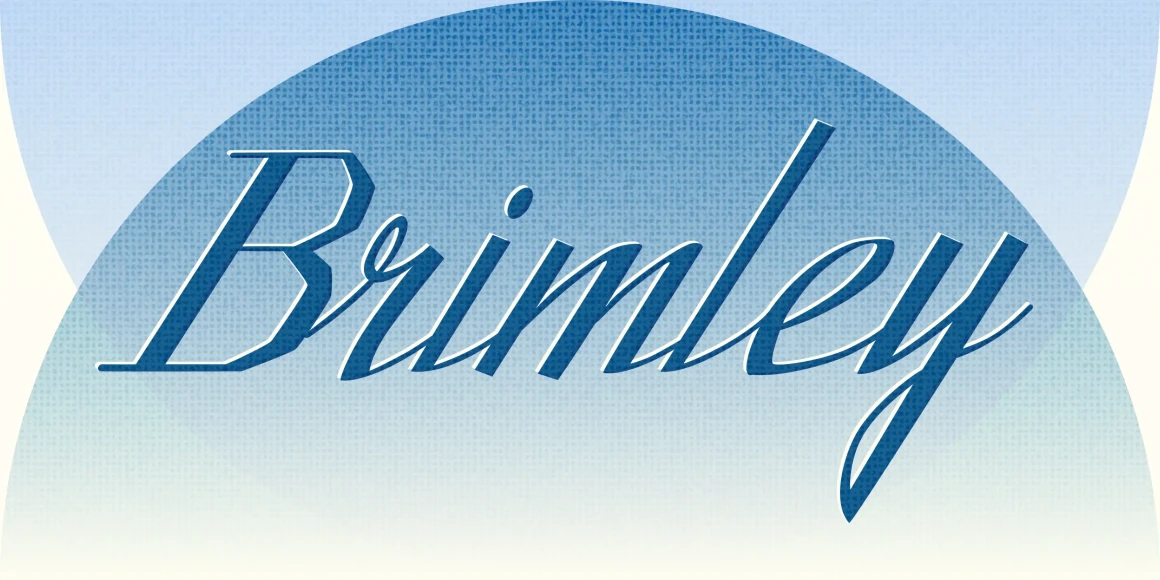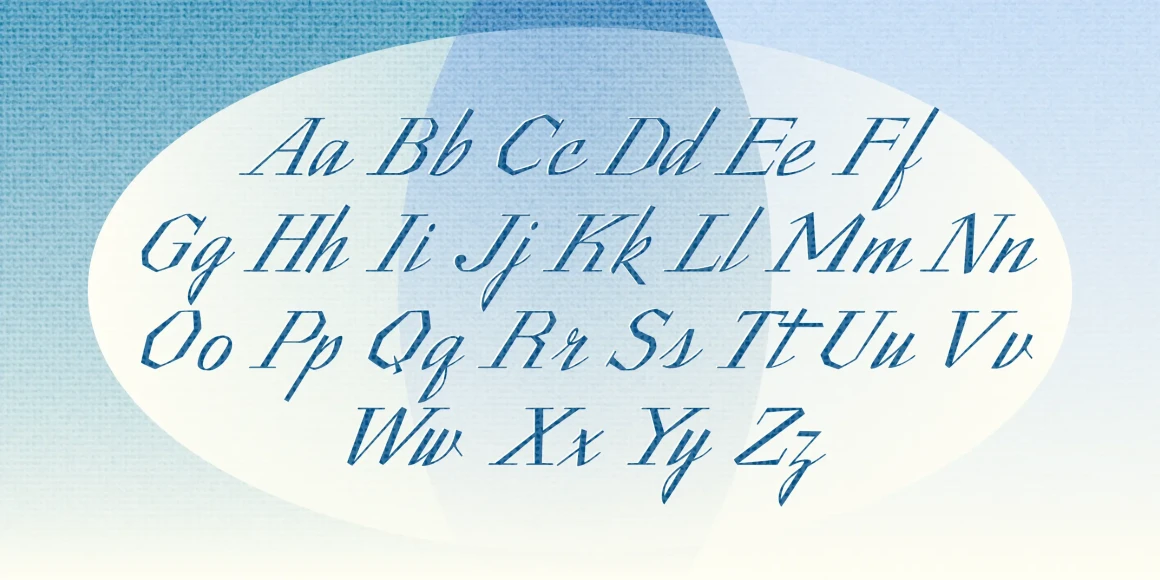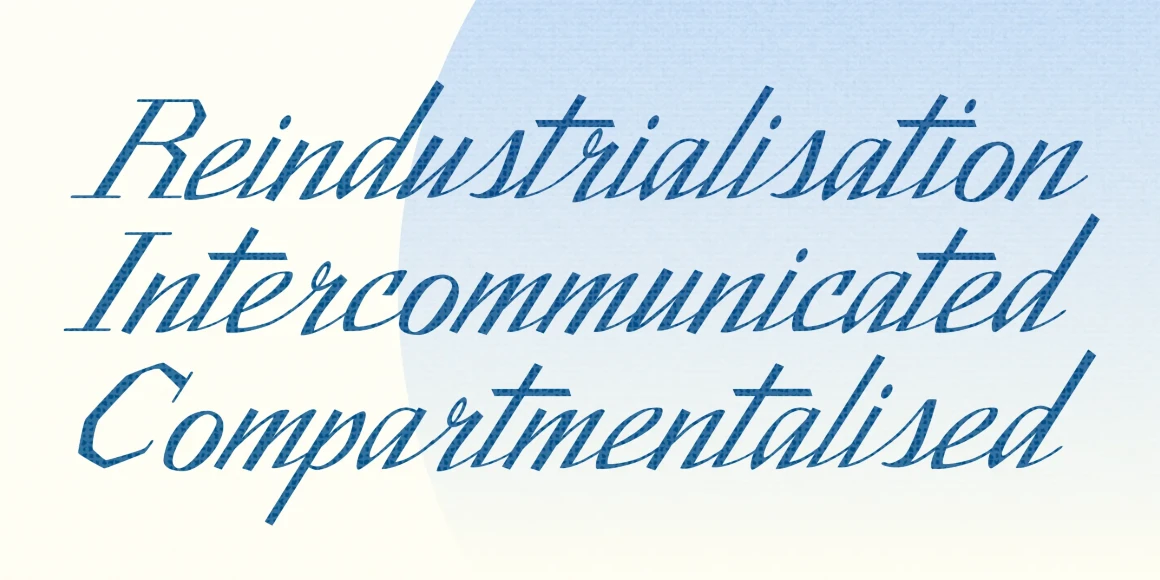
Brimley
From Chank Co
This slinky number will seduce you with its linking letters and special ligatures. Brimley’s strokes are tight and sharp, and its characters are tied together with slender, whispy hooks. Although its elegance is timeless, this is a style that typifies lettering of last century’s late ‘50s and early ‘60s. Chank Co. intern Tim Drabandt created Brimley with inspiration from antique type books. He named the font after Wilford Brimley. You know… the chubby old guy who tells you to check your blood sugar and eat your Grape Nuts and Quaker Oats. Haven’t you ever seen Cocoon?
Designed by Tim Drabandt